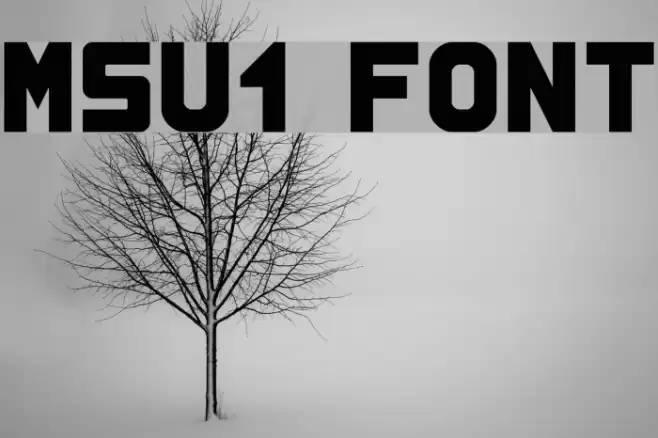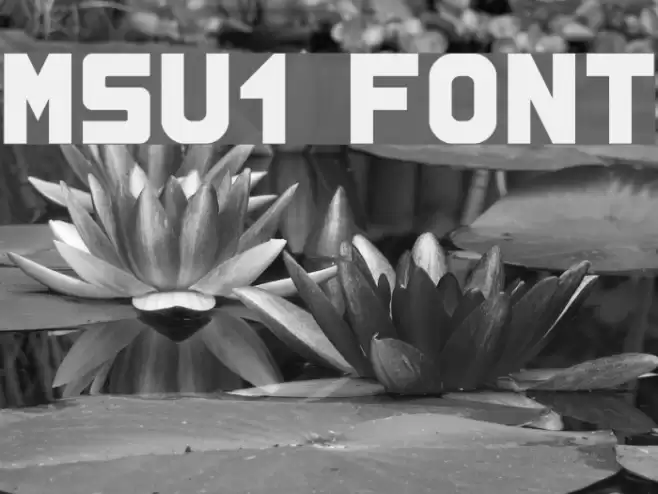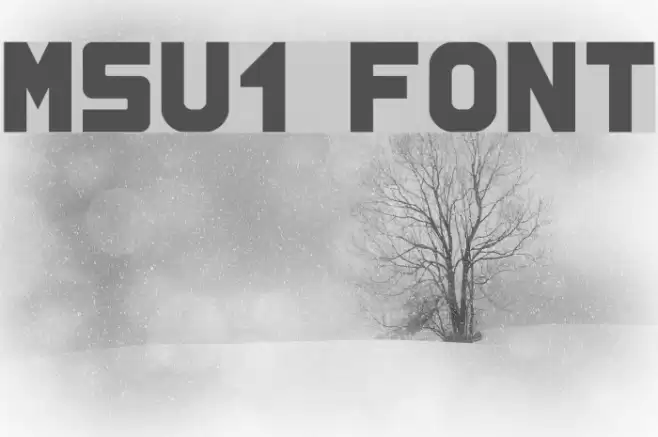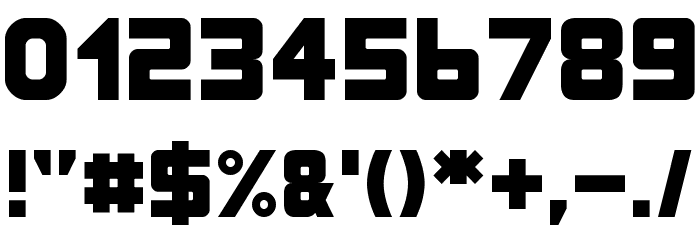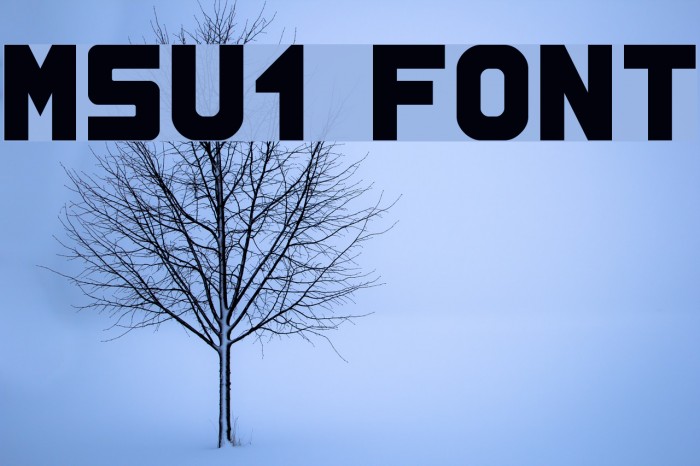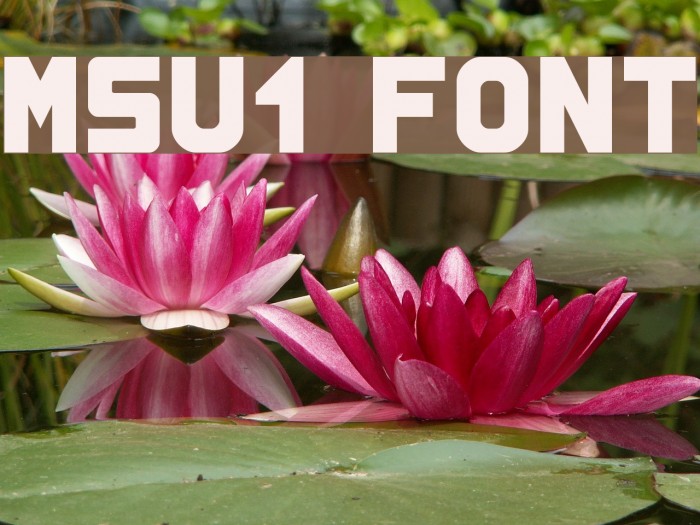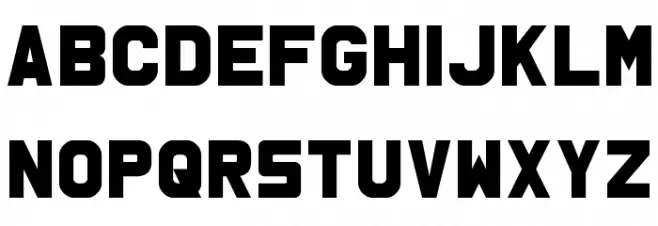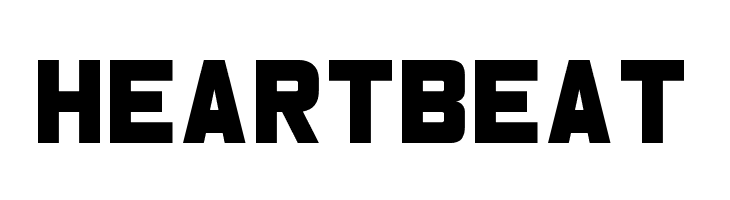
MSU1 Font
MSU1 Description
This font features bold, geometric letterforms with a strong presence, characterized by its blocky and robust design. The uppercase letters are uniform in height, with a consistent stroke width that gives the font a powerful and impactful appearance. The numbers and special characters maintain the same boldness, ensuring a cohesive look across all characters. The font's design is modern and assertive, making it suitable for attention-grabbing headlines and titles. Its clean lines and lack of serifs contribute to a contemporary and streamlined aesthetic.
A bold, geometric font with a modern and impactful design from Uncategorized fonts.
- Proposed Projects: Ideal for sports branding, posters, headlines, and any project requiring a strong visual impact.